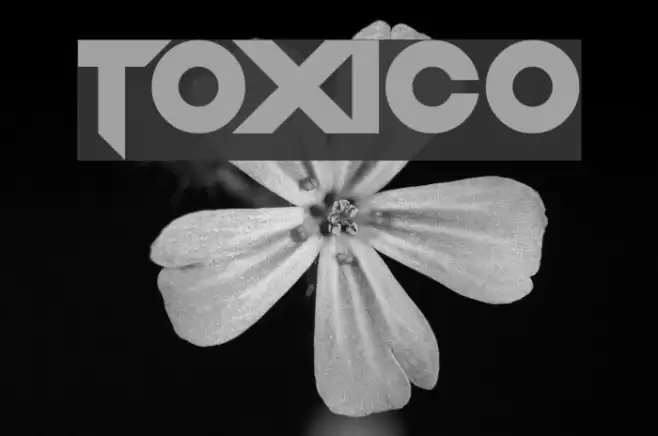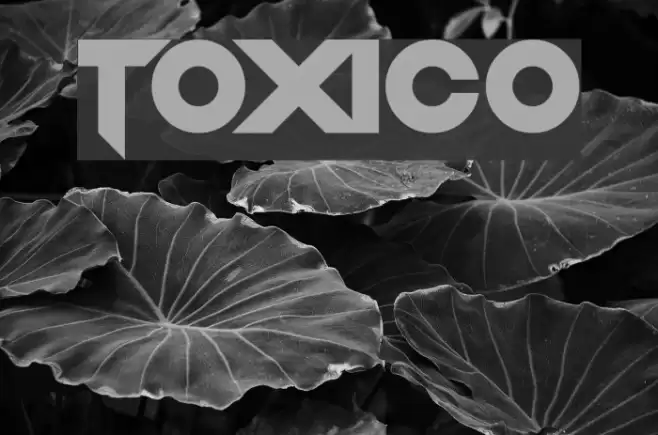
Toxico Font
Toxico Description
This font features a bold and geometric design with sharp angles and a futuristic aesthetic. The uppercase letters are characterized by their solid, block-like forms, often incorporating diagonal cuts and unique shapes that give them a dynamic and edgy appearance. The lowercase letters maintain this boldness, with consistent geometric styling that ensures readability while adding a distinct visual flair. Numbers and special characters follow the same design principles, making them cohesive with the rest of the character set. The overall style is striking and modern, suitable for projects that require a strong visual impact.
A bold, geometric font with a futuristic and edgy design from Uncategorized fonts.
- Proposed Projects: Ideal for sci-fi themed designs, video game titles, tech branding, and modern posters.